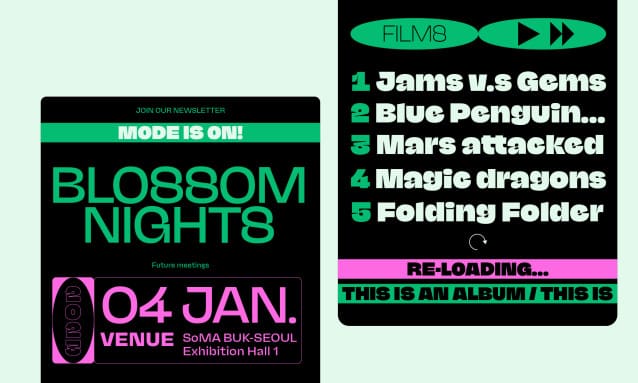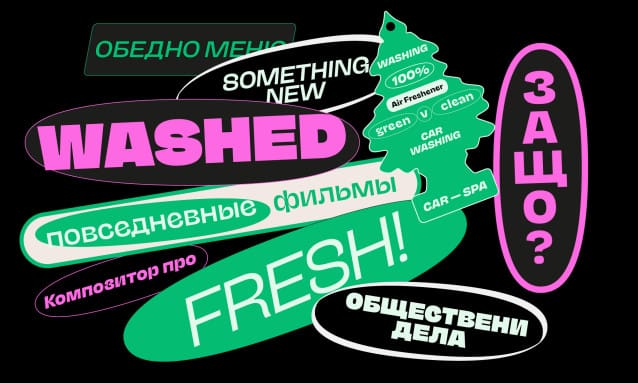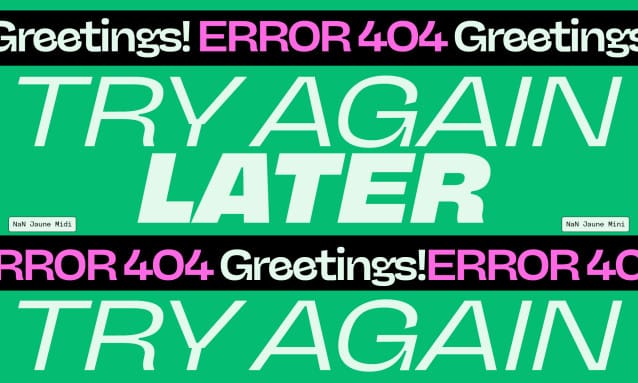
NaN Jaune Font Family
NaN Jaune Font Family is a collection of three sub-families, one per optical size. Closed apertures, display for text and text for display, Jaune follows this NaN motto: take a bad idea and do it well, or at least die trying. If one typically avoids colliding glyph anatomy then Jaune looks at the problem upside down and sticks together that which normally shouldn’t touch.
Maxi was created with display in mind. Ranging from the blackest Black to a razor sharp Thin its short extenders make it ideal for compact text blocks and strong headlines.
Midi is the all-terrain middle-child comfortable in all contexts and conversations.
Mini’s open counters, deep ink-traps and simplified structure enhance legibility and eases Jaune’s natural swagger in longer text and smaller sizes.